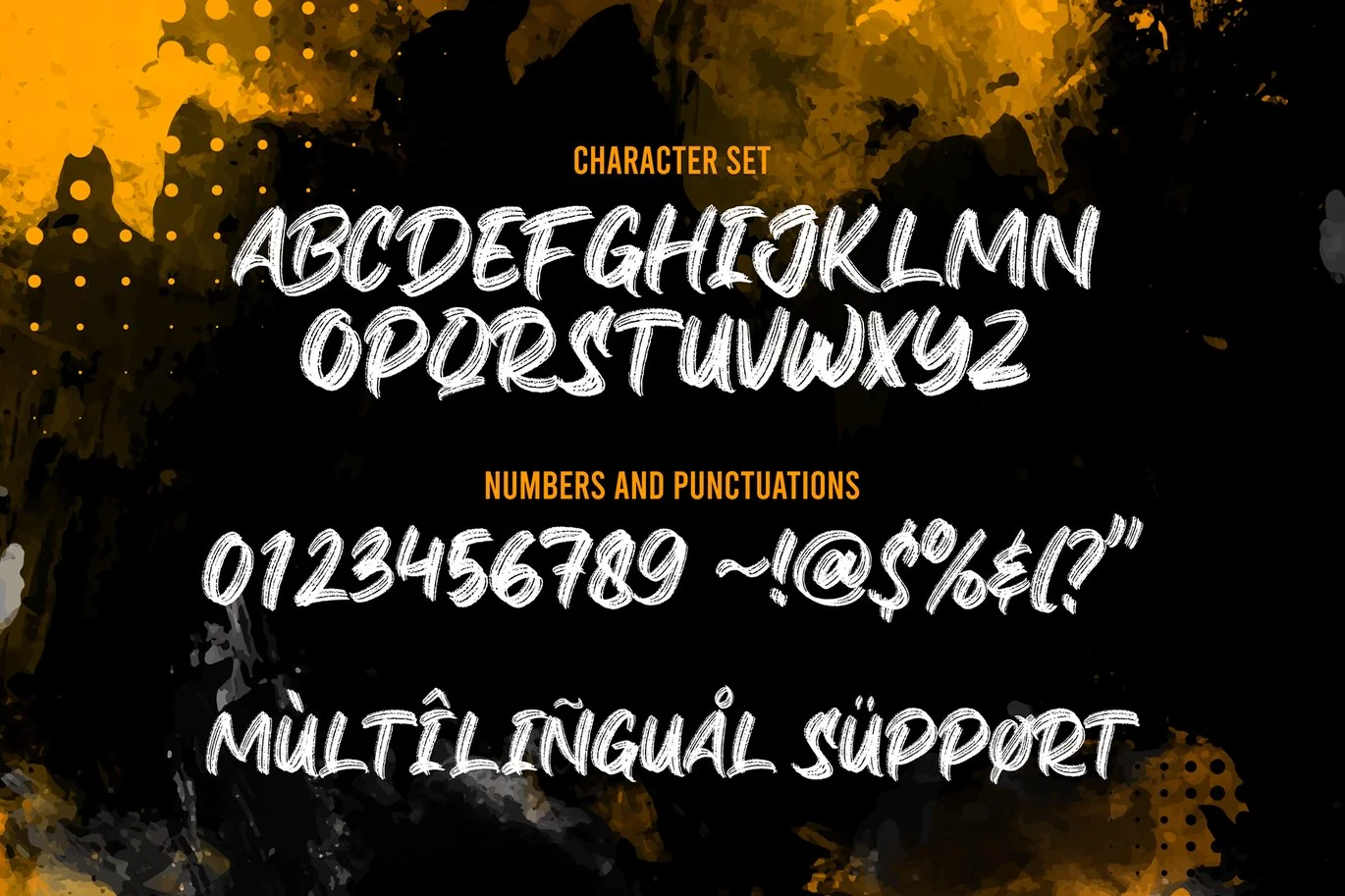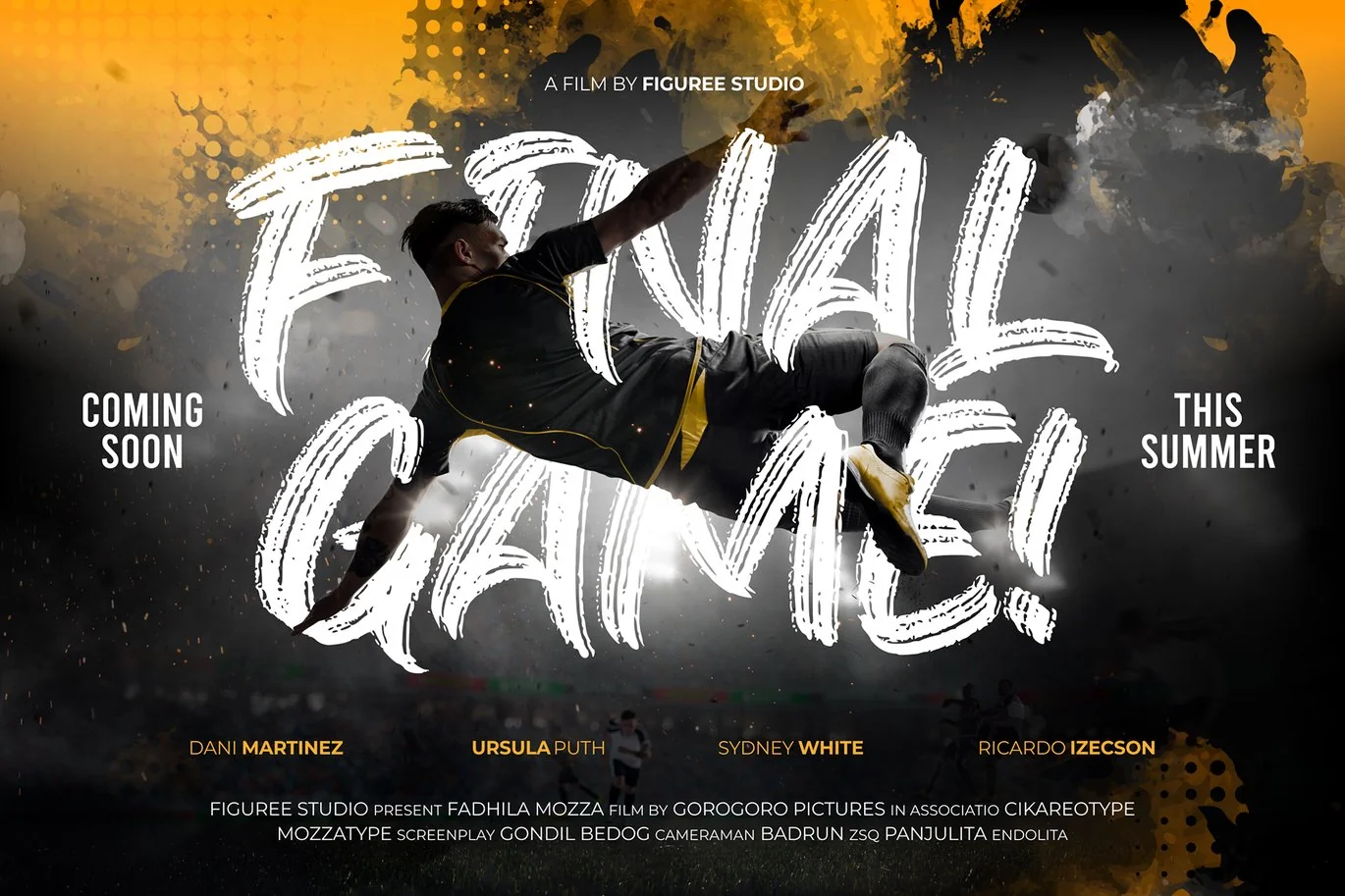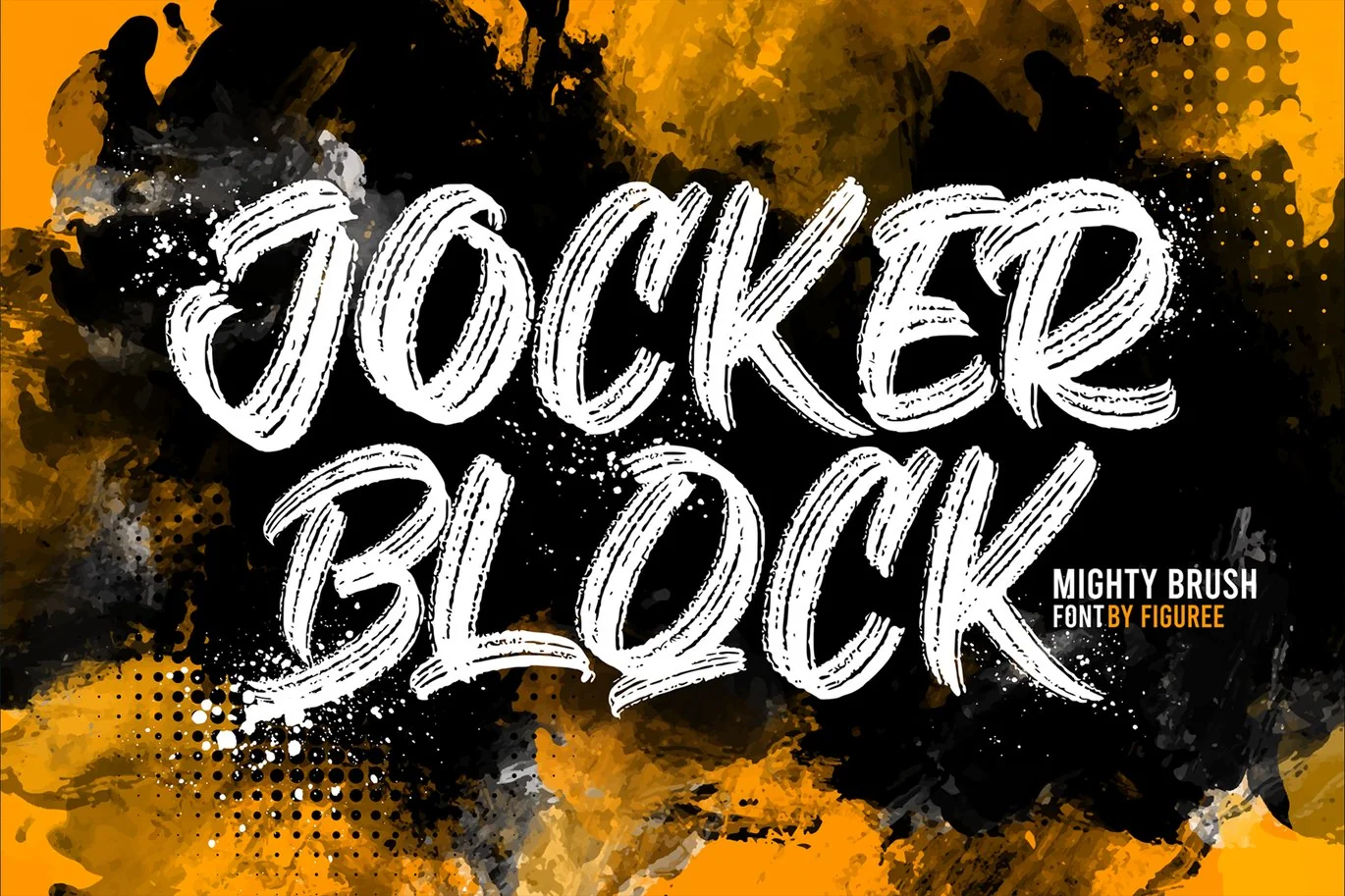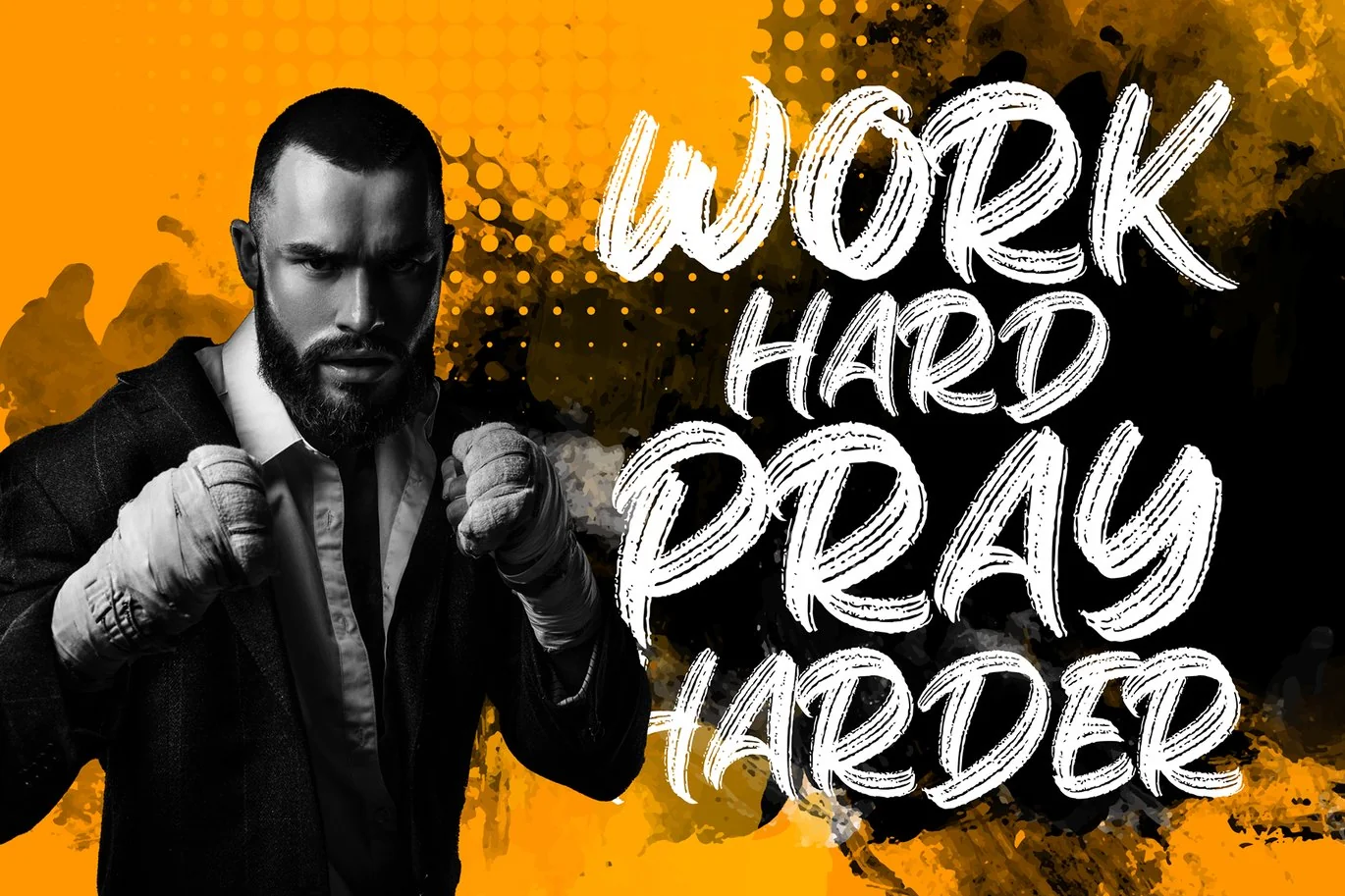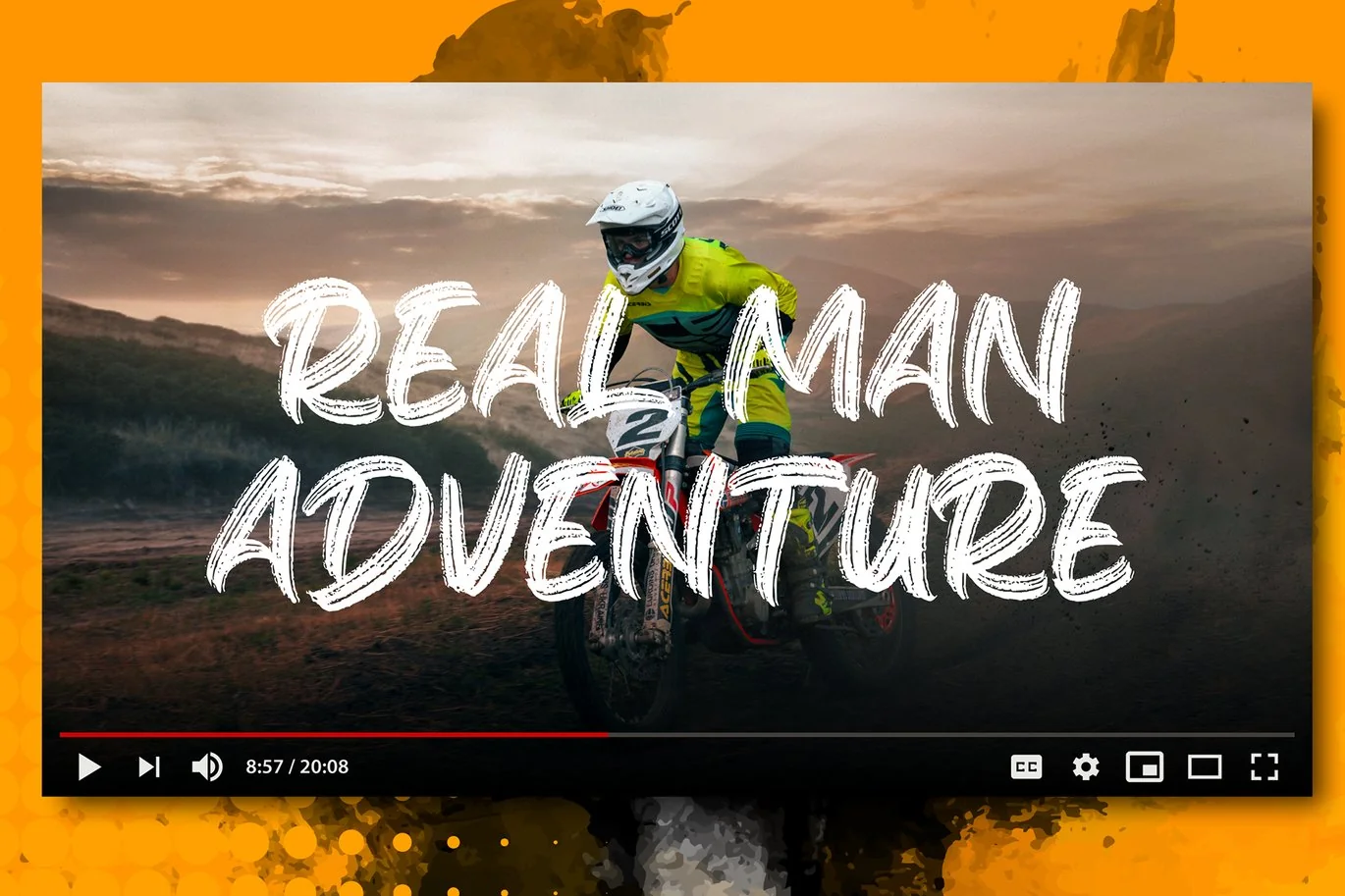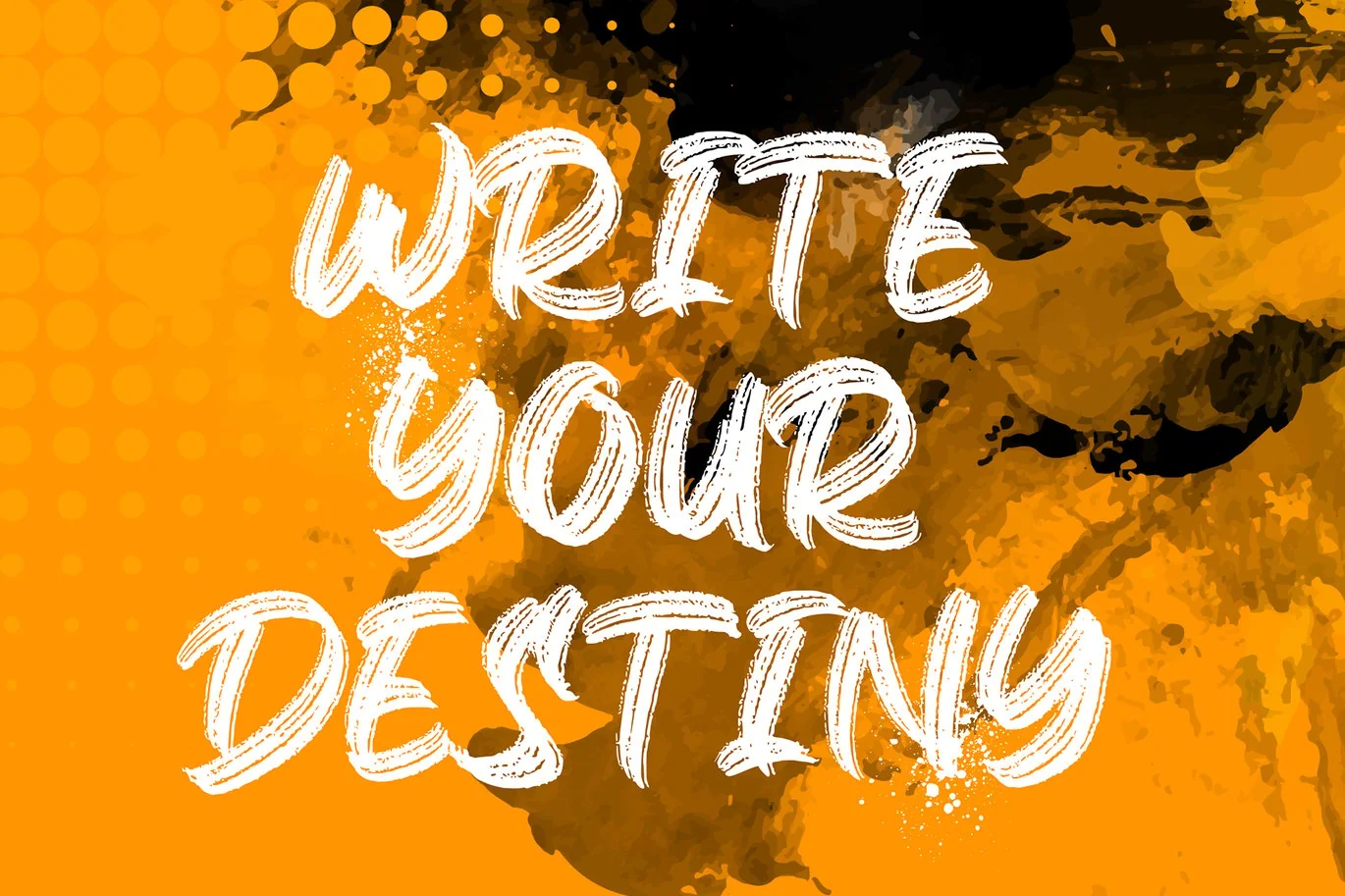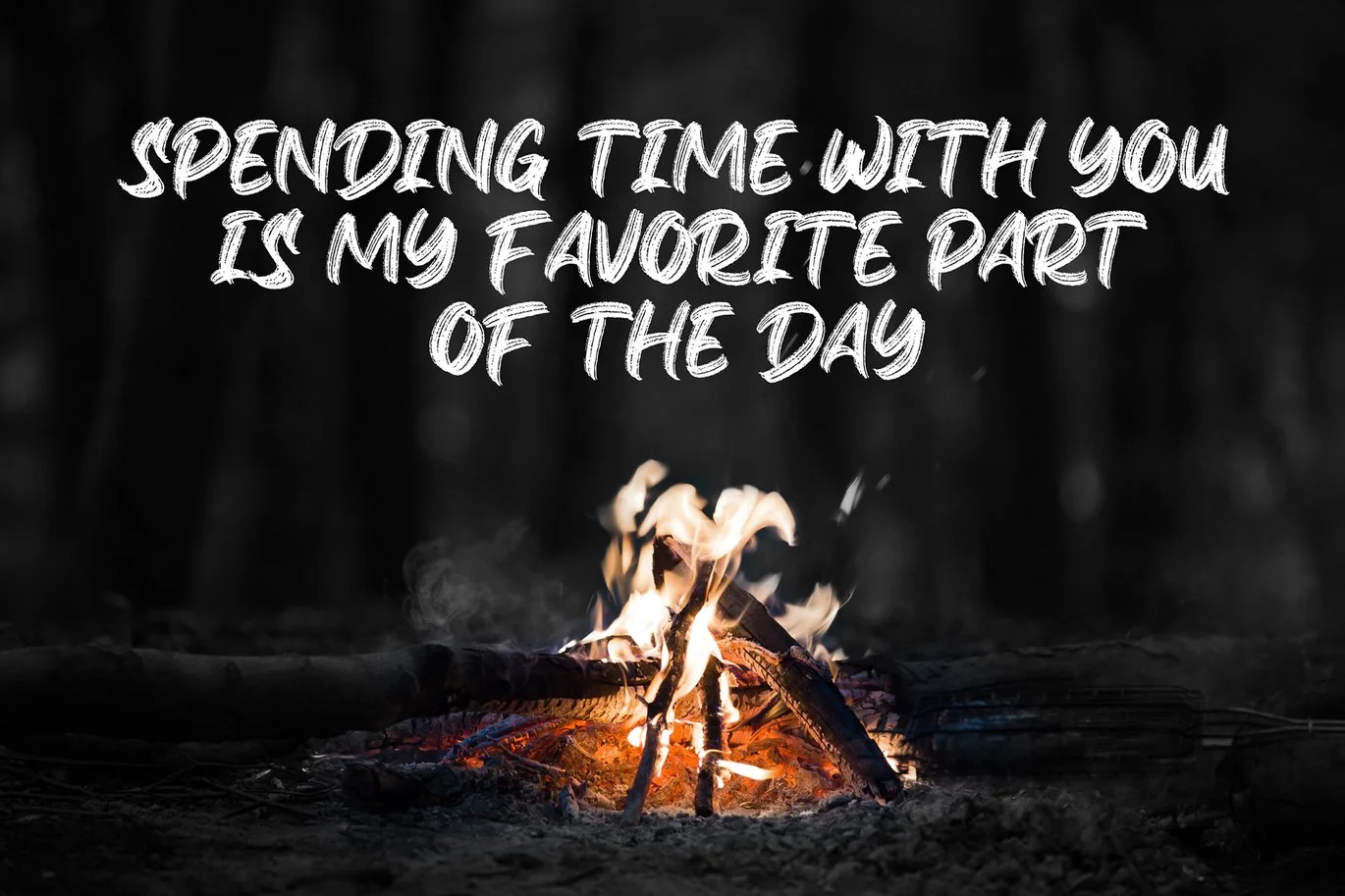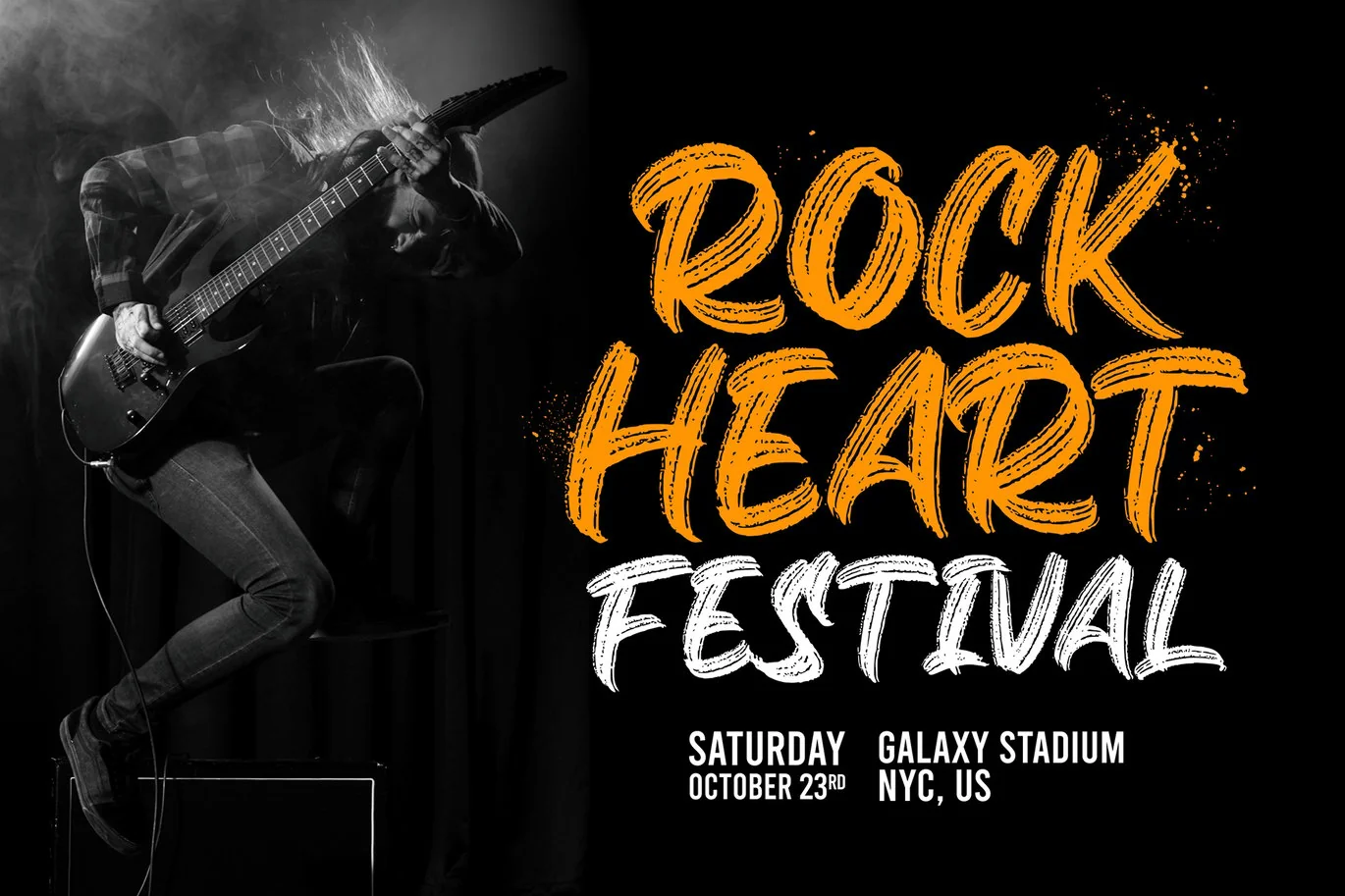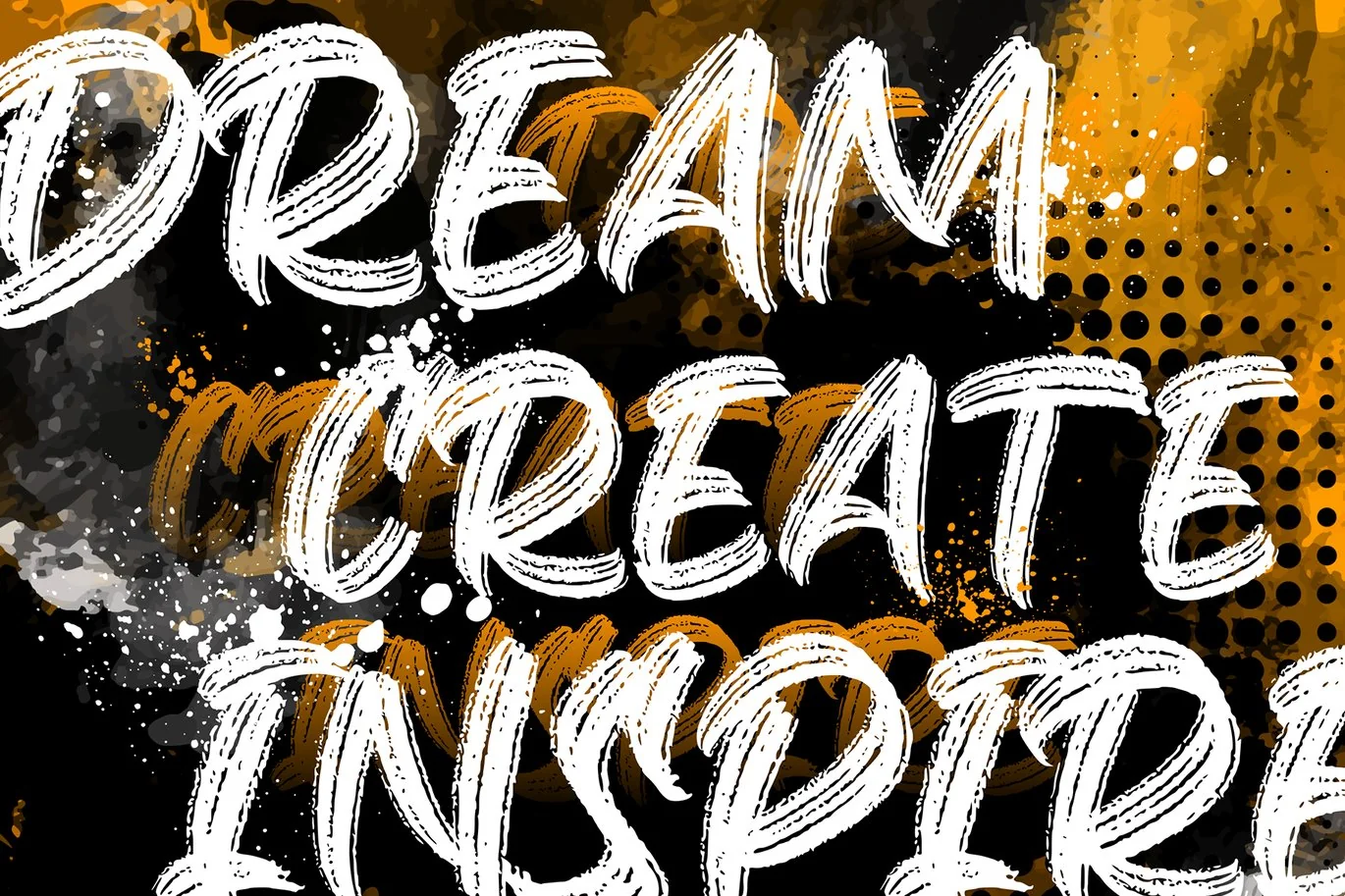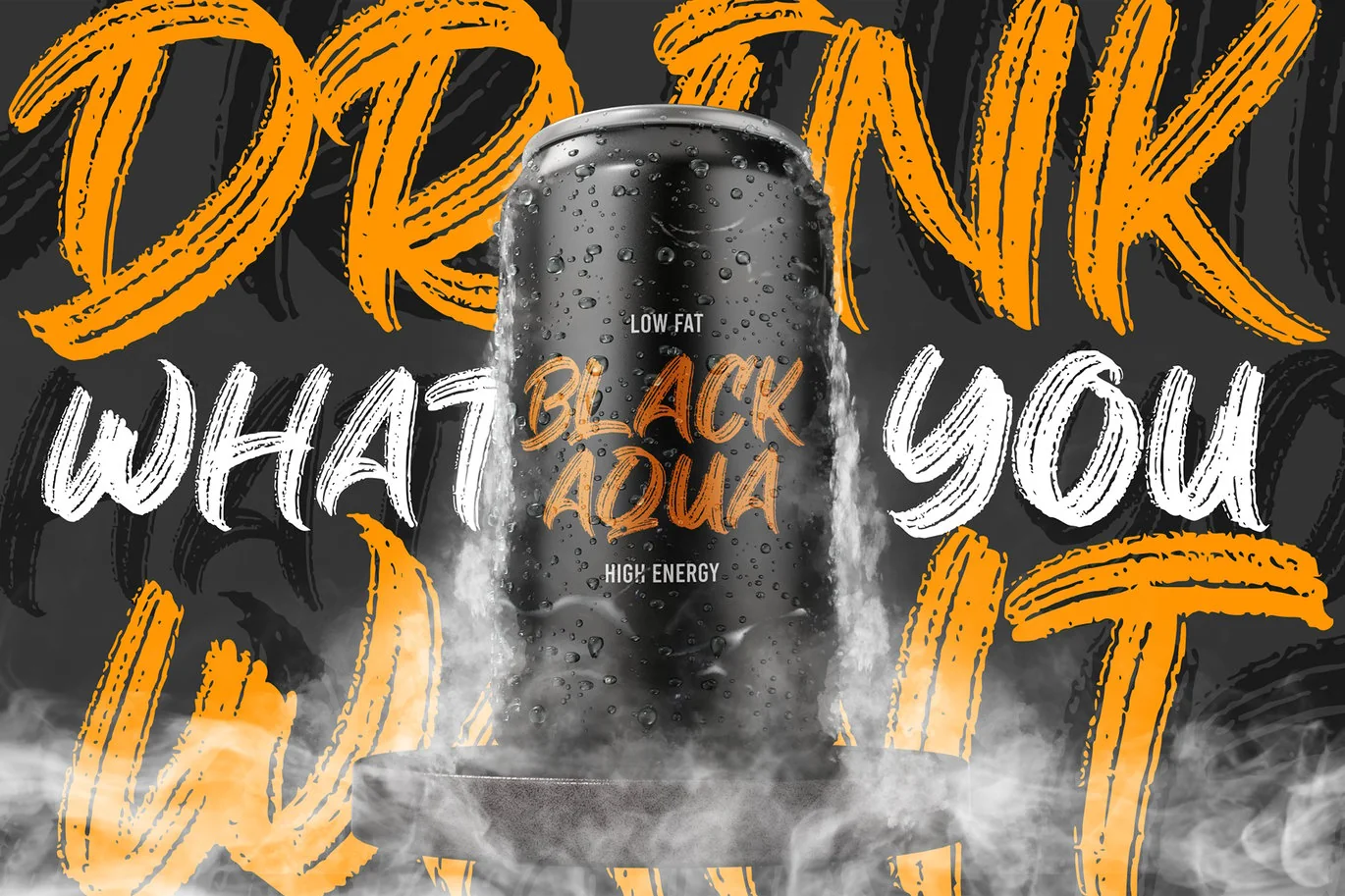
Jocker Block – Brush Font
Introducing Jocker Block!
Jocker Block is natural and strong hand-drawn brush font that combines attractive curves with a fresh urban edge; delivering a stylish brush font that is guaranteed to add an eye-catching appeal to your logo designs, brand imagery, handwritten quotes, product packaging, merchandise, social media post, or website font.
- All Caps Font
- Versatile for branding, headline, or printing product
- Detailed dry brush markers